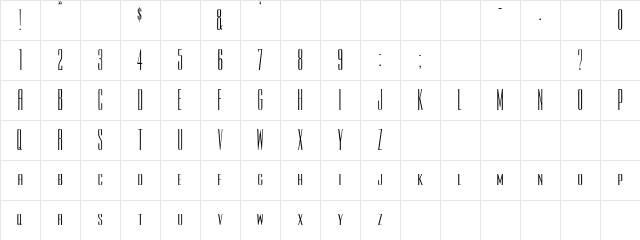
Rothman Regular
Design Context for Rothman
Rothman is a composed and adaptable typeface that performs quietly and consistently across a wide range of design contexts.